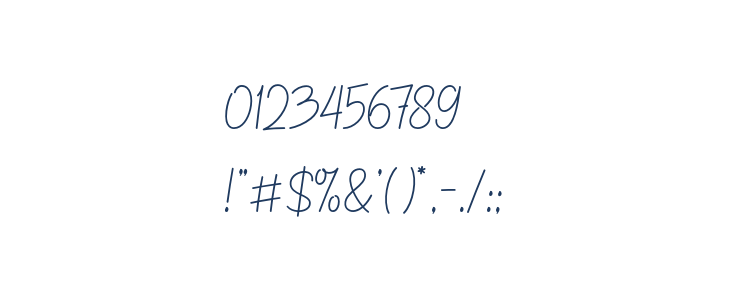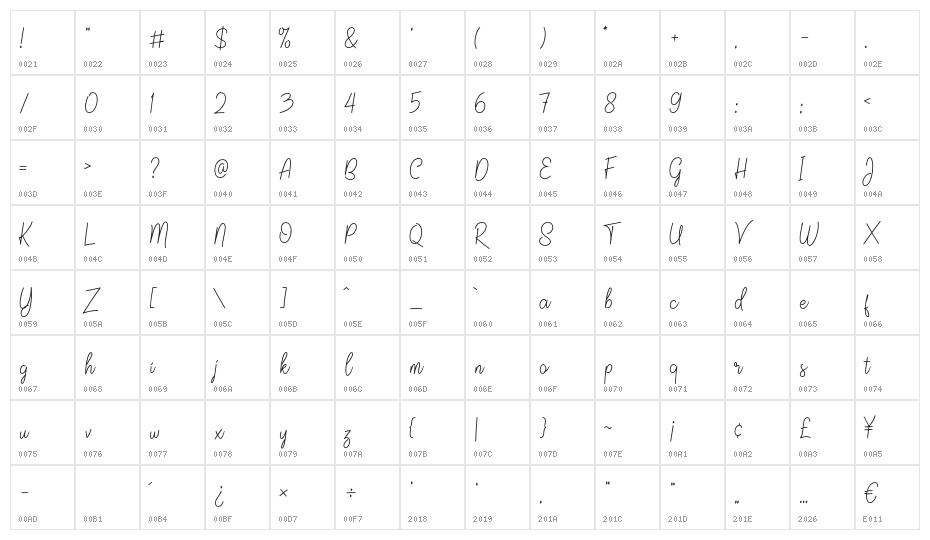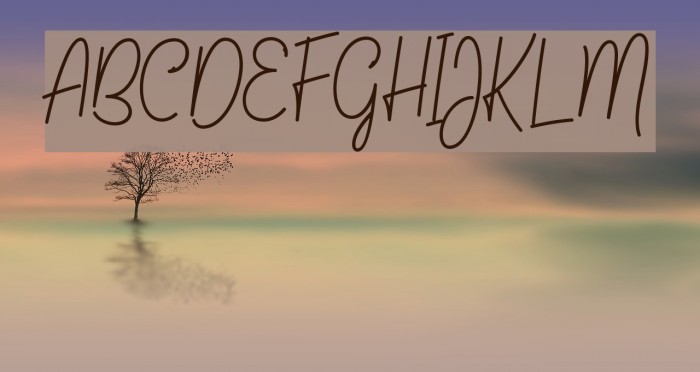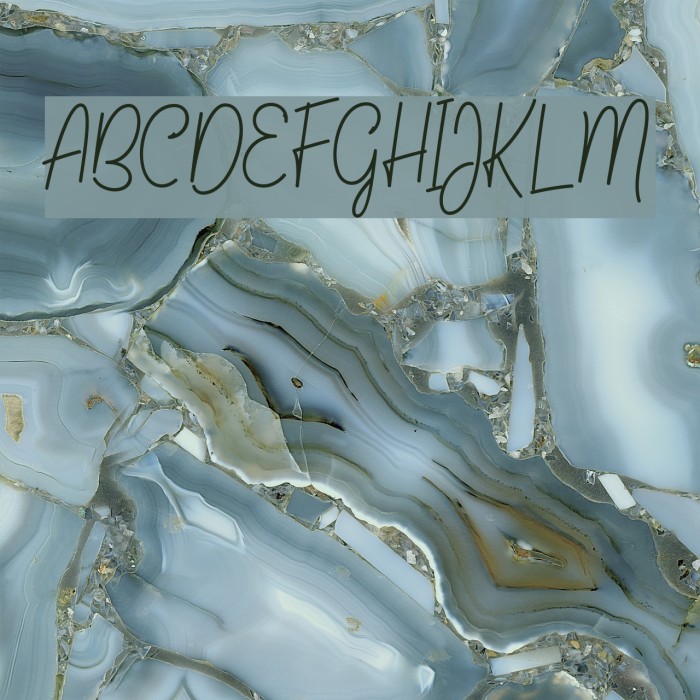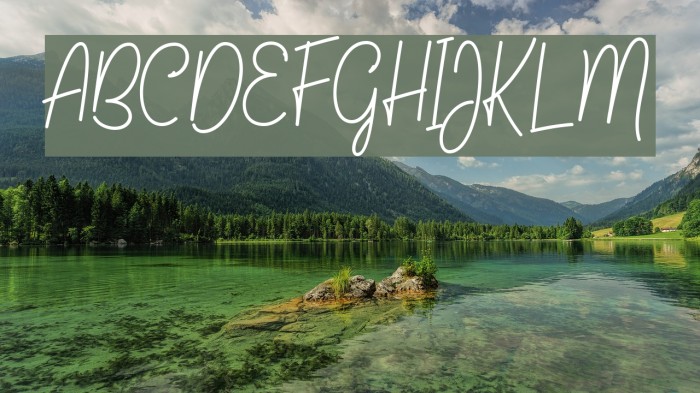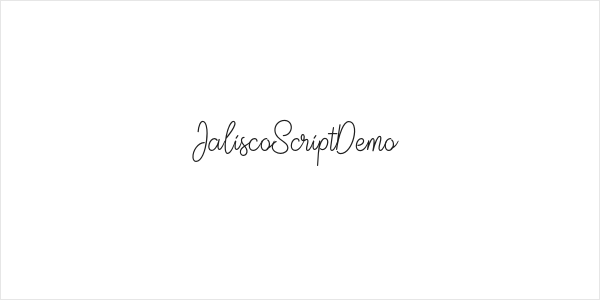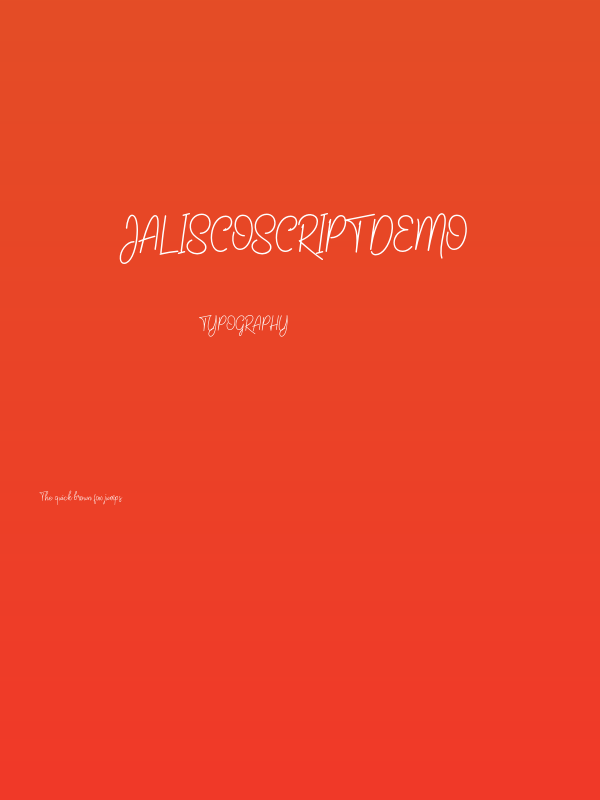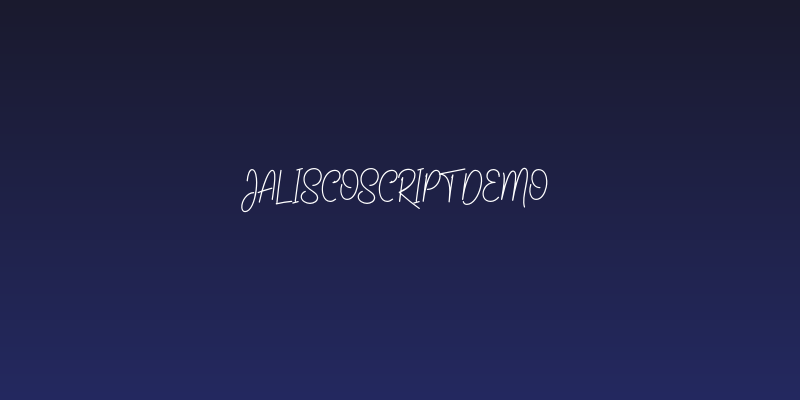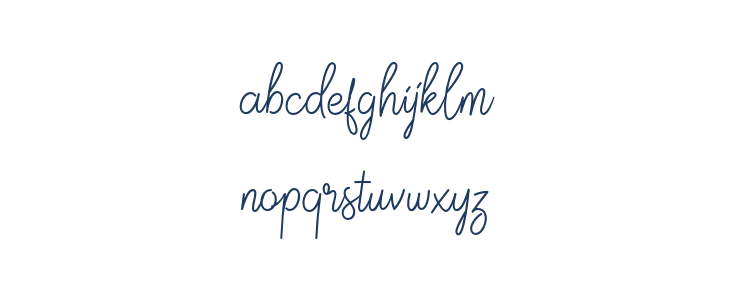
JaliscoScriptDemo Font
JaliscoScriptDemo Description
This font features a flowing, cursive style with elegant loops and swashes, giving it a handwritten appearance. The uppercase letters are tall and slightly slanted, while the lowercase letters maintain a consistent baseline with smooth connections. The numerals are distinct and maintain the same fluidity as the letters. Special characters are designed to complement the overall script style, adding a touch of sophistication. The font's strokes are consistent in thickness, providing a harmonious and balanced look, ideal for projects that require a personal or artistic touch.